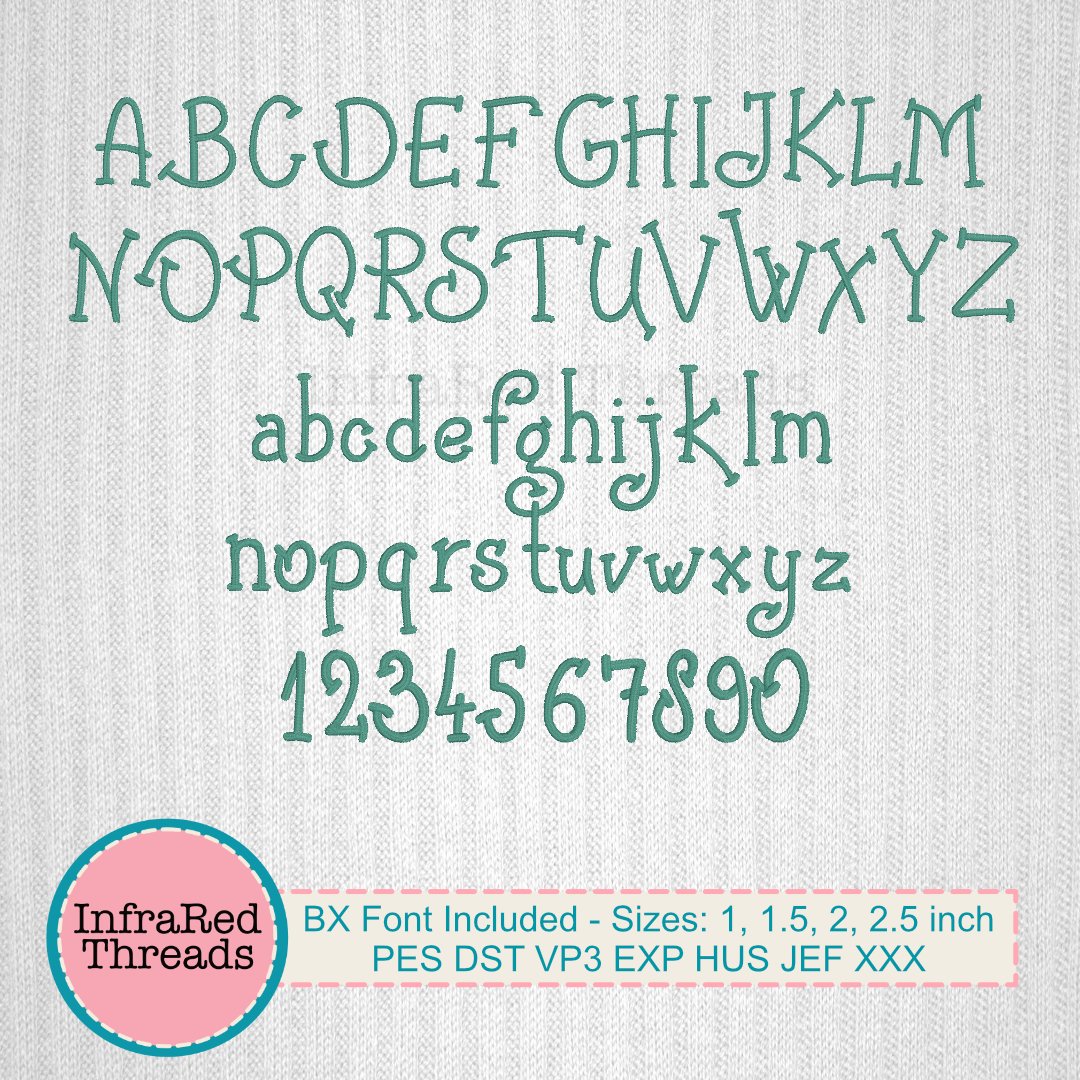
Amelia Embroidery Font – Whimsical Rounded Alphabet in 3 Sizes
The Amelia Font is a fun and playful embroidery alphabet with soft curves and rounded edges. Its whimsical style makes it a perfect choice for children’s projects, monograms, name stitching, personalized gifts, or decorative phrases. This font includes uppercase and lowercase letters in 3 useful sizes for a variety of hoop formats. Great for crafters, small businesses, and anyone looking to add a cheerful stitched look to their embroidery work.